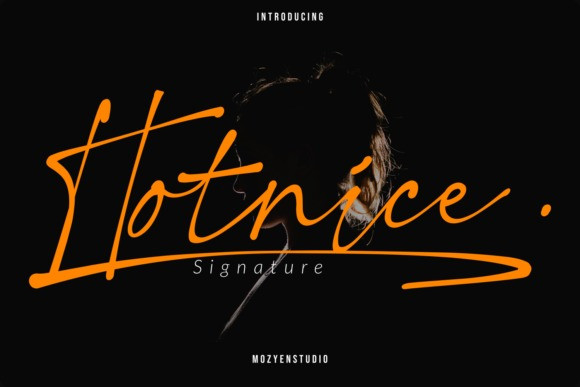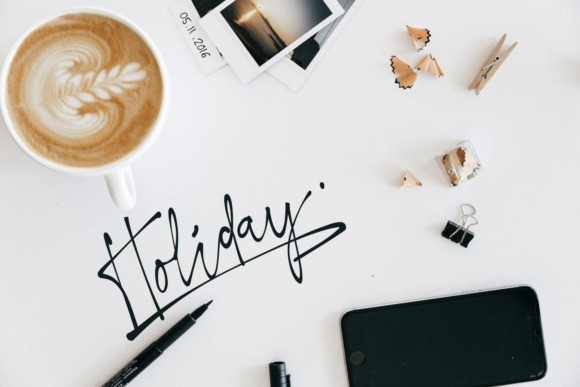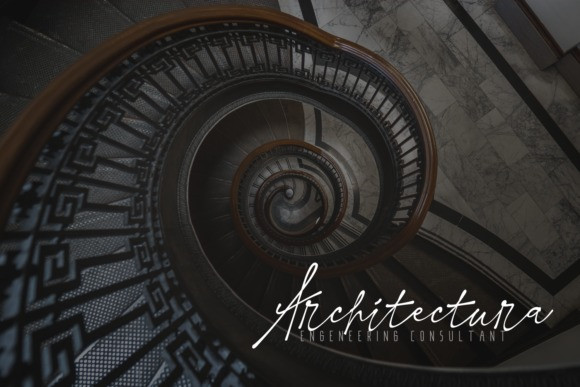
Hot Nice Handwritten Font
Hot Nice is a charming and bold script font featuring authentic strokes. This gorgeous script will turn any design idea into an eye-catcher!